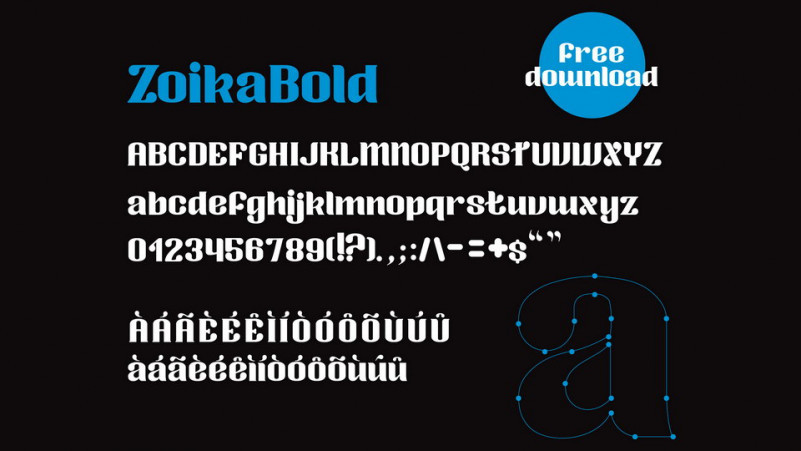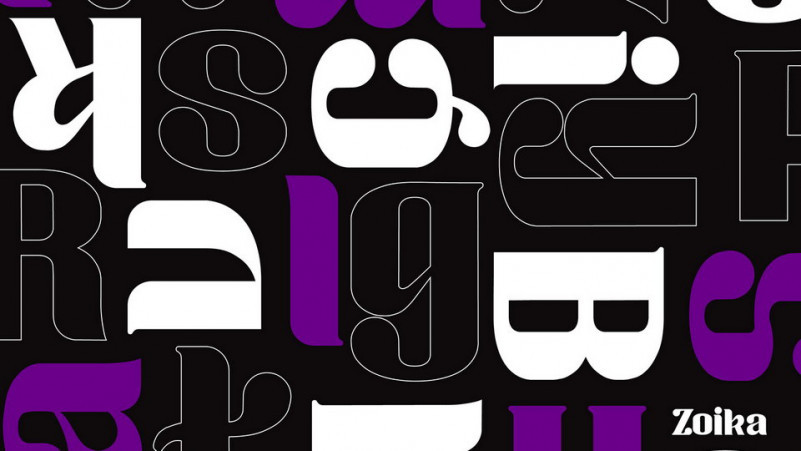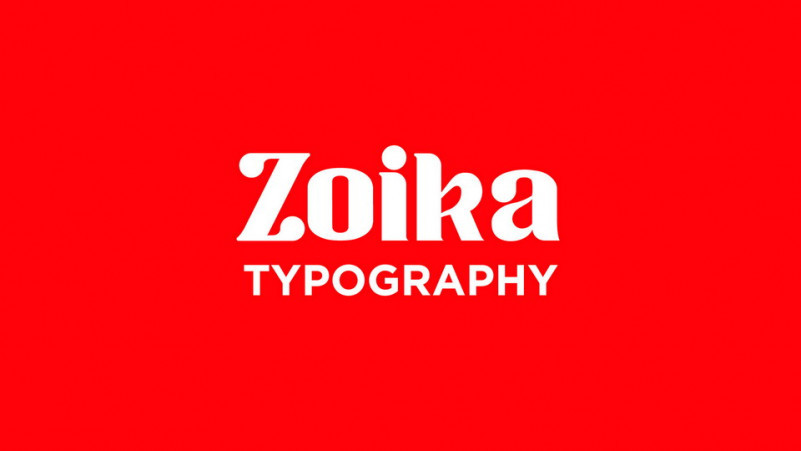
Zoika Typeface
Hello! This is a font display. A display typeface with classy and luxury look! They works perfect for you. If you are looking for a display style suited to your design then it’s here! Introducing Zoika Font. This font has a lot combination style eg: modern, classic, luxury, fashion, sans serif, decorative… This font will work on any media, you can use it for logo, headline, typography poster, product packaging, or event your wedding invitation.